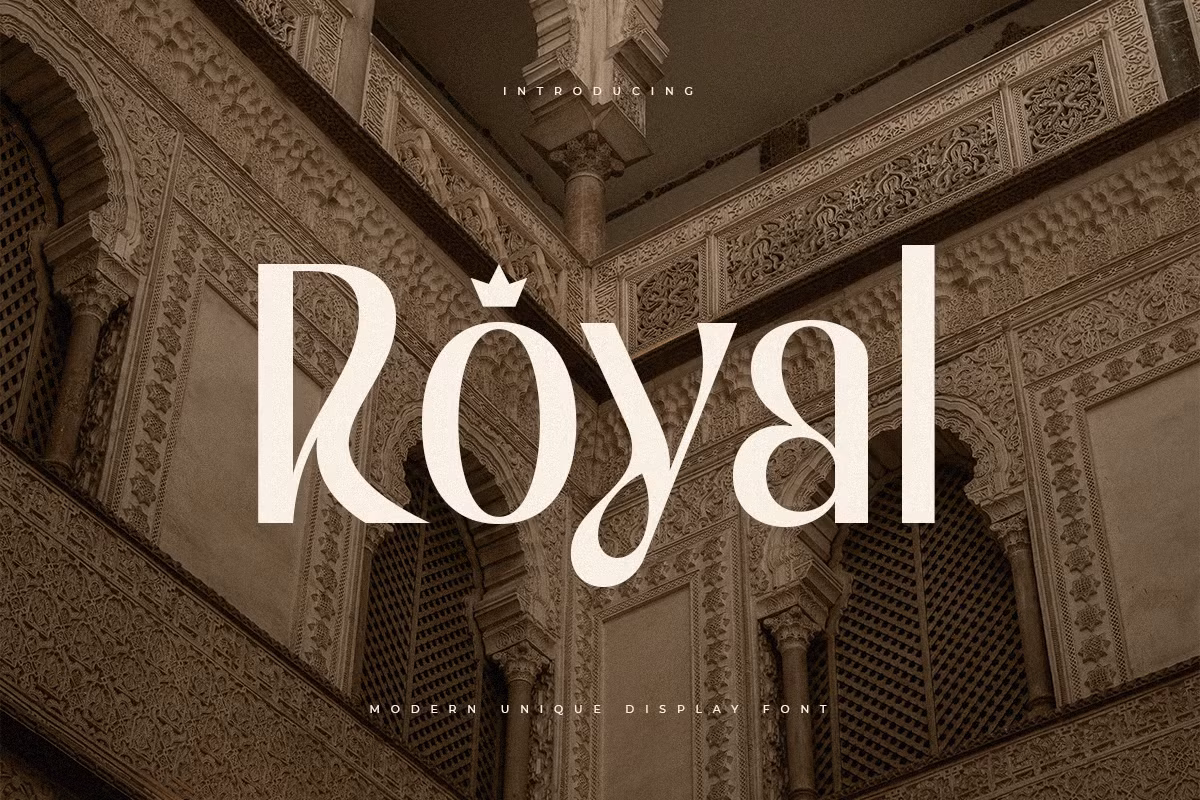
Royal - Modern Unique Display Font Free Download
Royal - Modern Unique Display Font Free Download is a bold and sophisticated typeface crafted for standout visual impact. With its sharp edges, stylish curves, and contemporary flair, this font is perfect for luxury branding, high-fashion magazines, logo designs, and upscale product packaging. It’s a display font that speaks elegance and authority in every character.
Its distinctive look makes it ideal for headings, titles, and statements where making an impression matters. Whether you're designing for digital or print, Royal brings a polished and premium feel that instantly elevates your creative work.